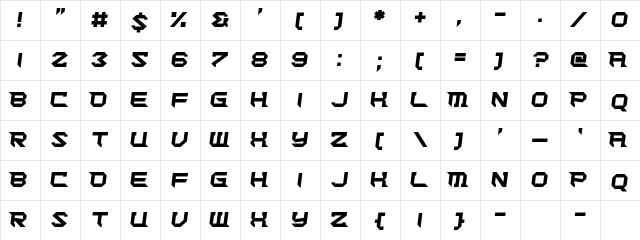
Cut Deep Regular Font Preview
Cut Deep Regular
Cut Deep Regular Font Details
| Designer | Allison James |
Design Context for Cut Deep Typeface
Cut Deep is a composed and adaptable typeface that performs quietly and consistently across a wide range of design contexts.